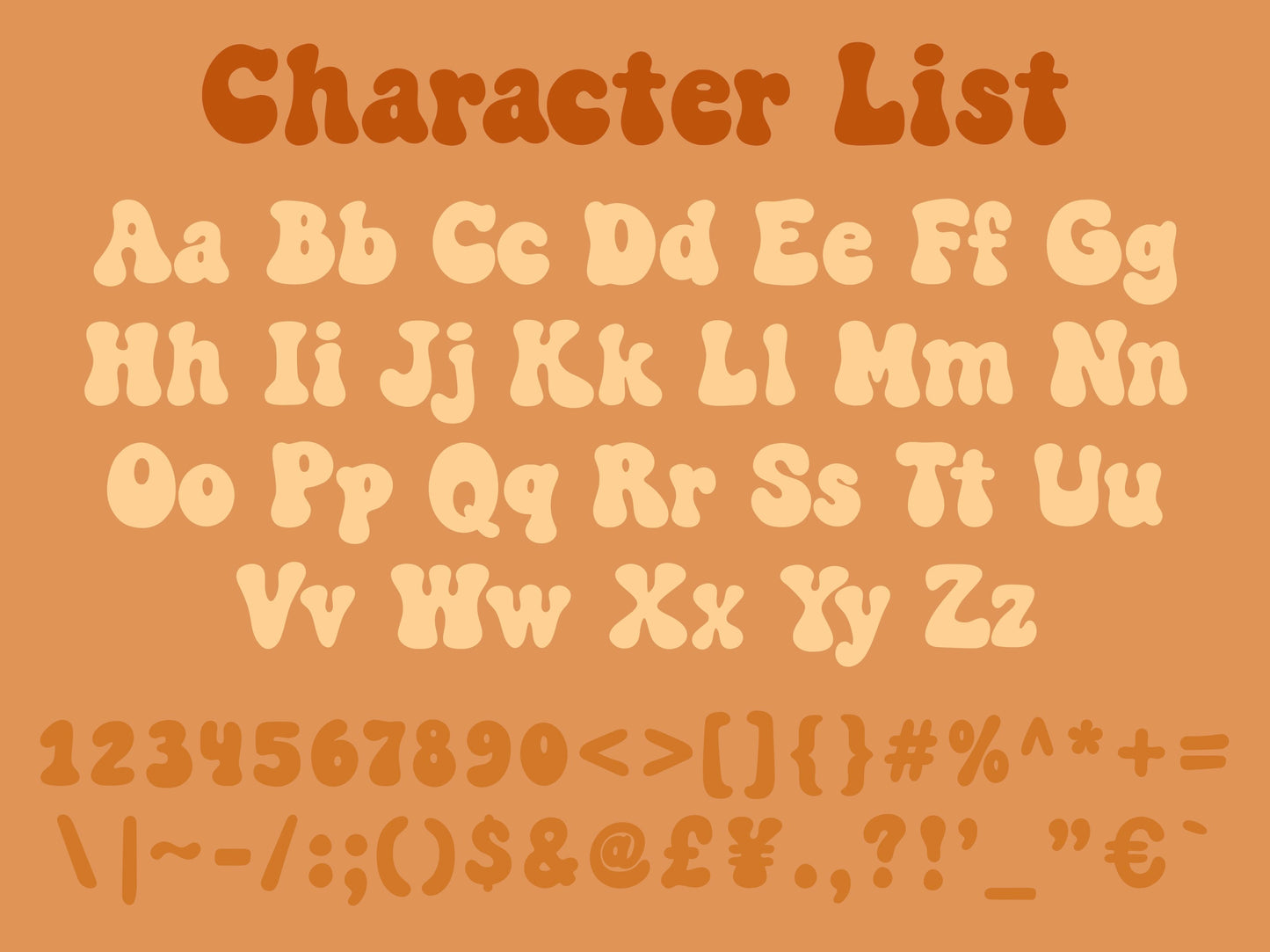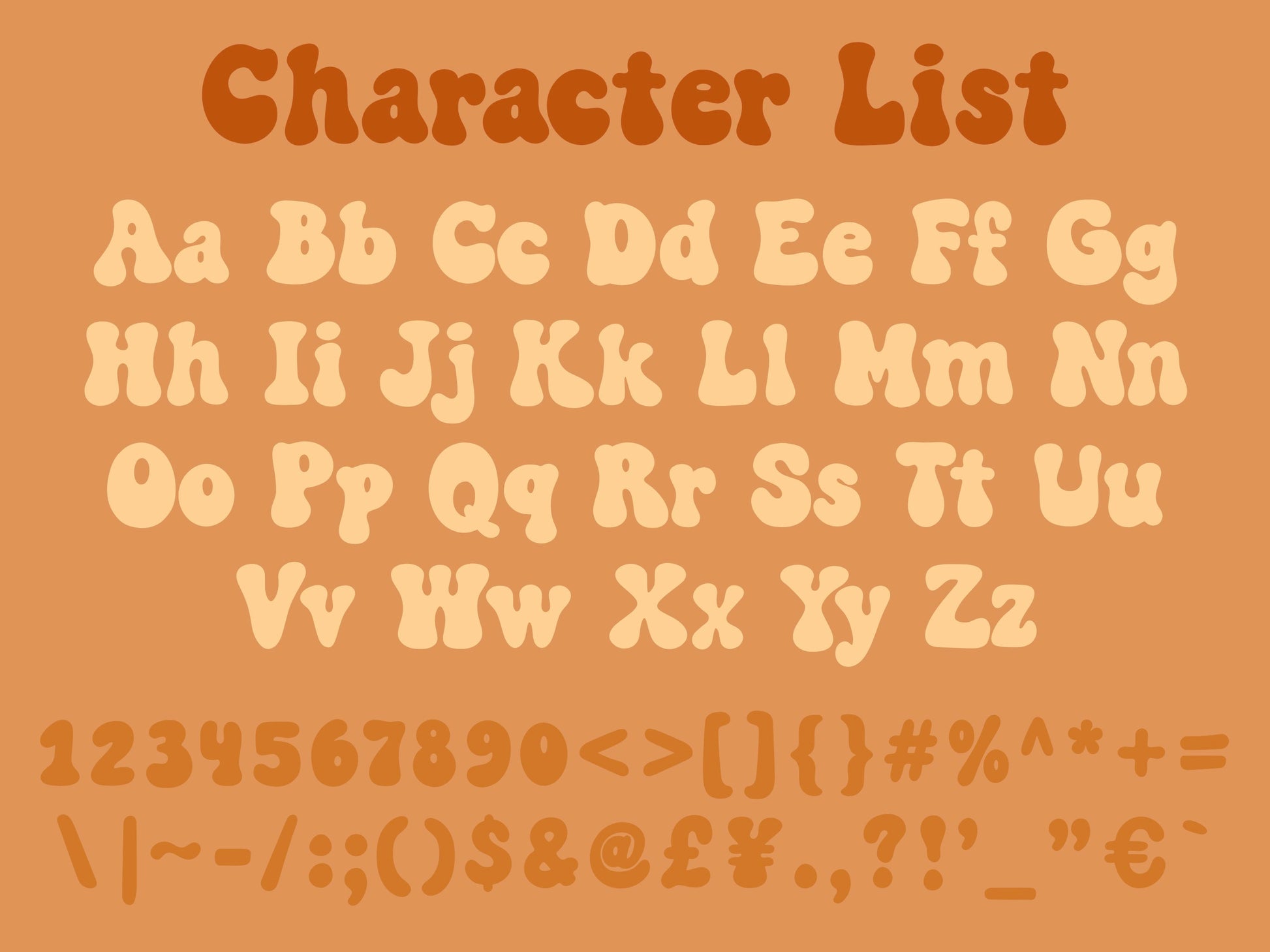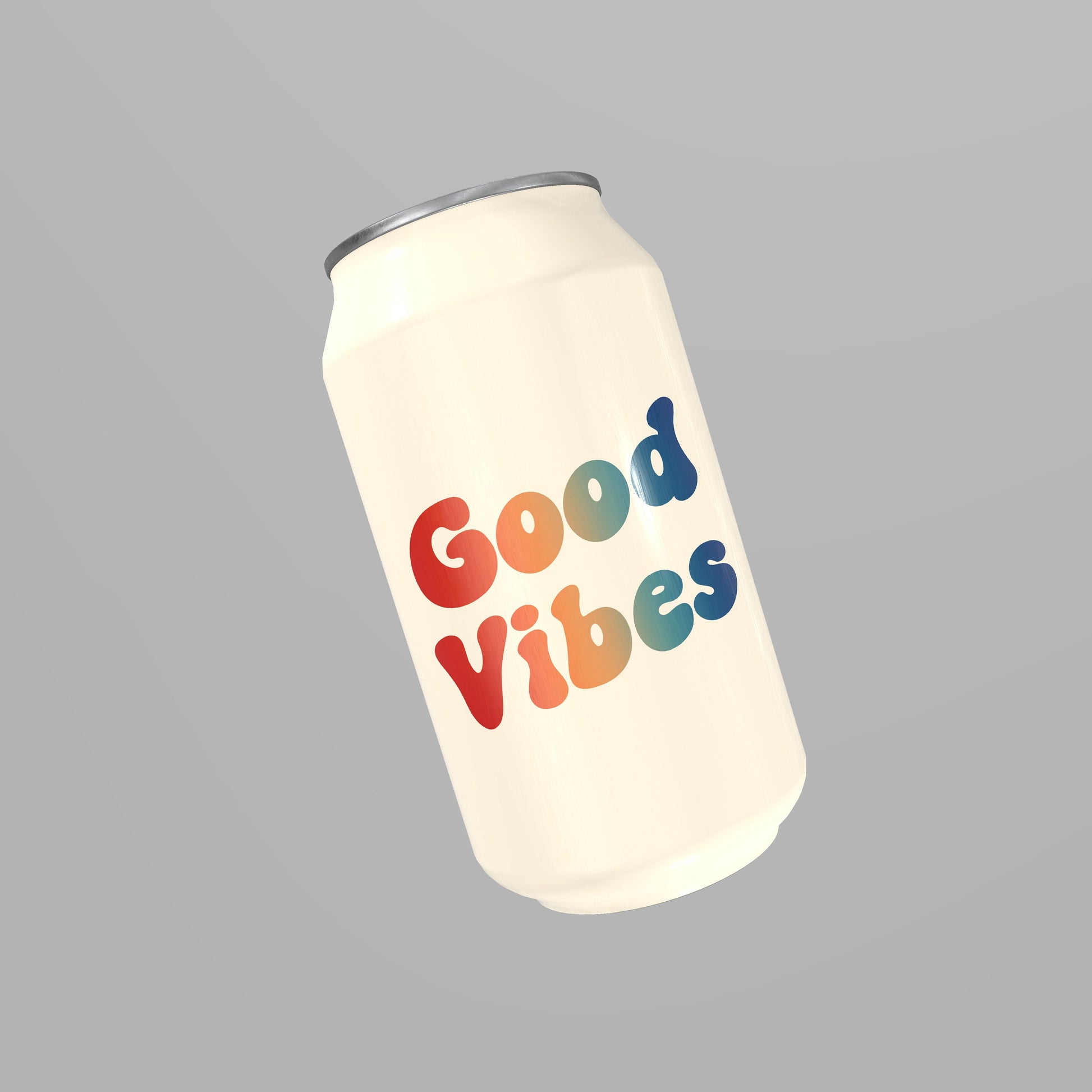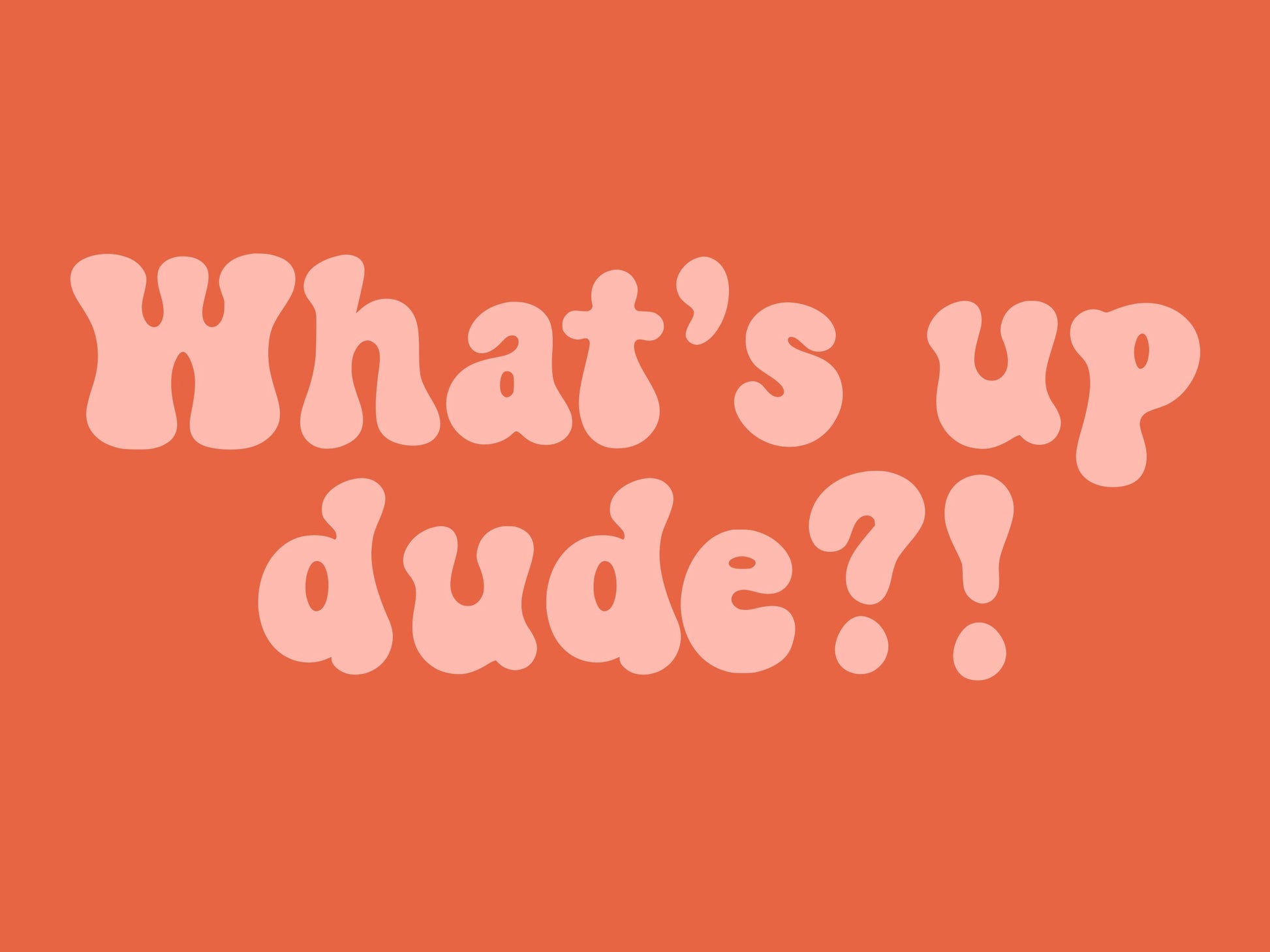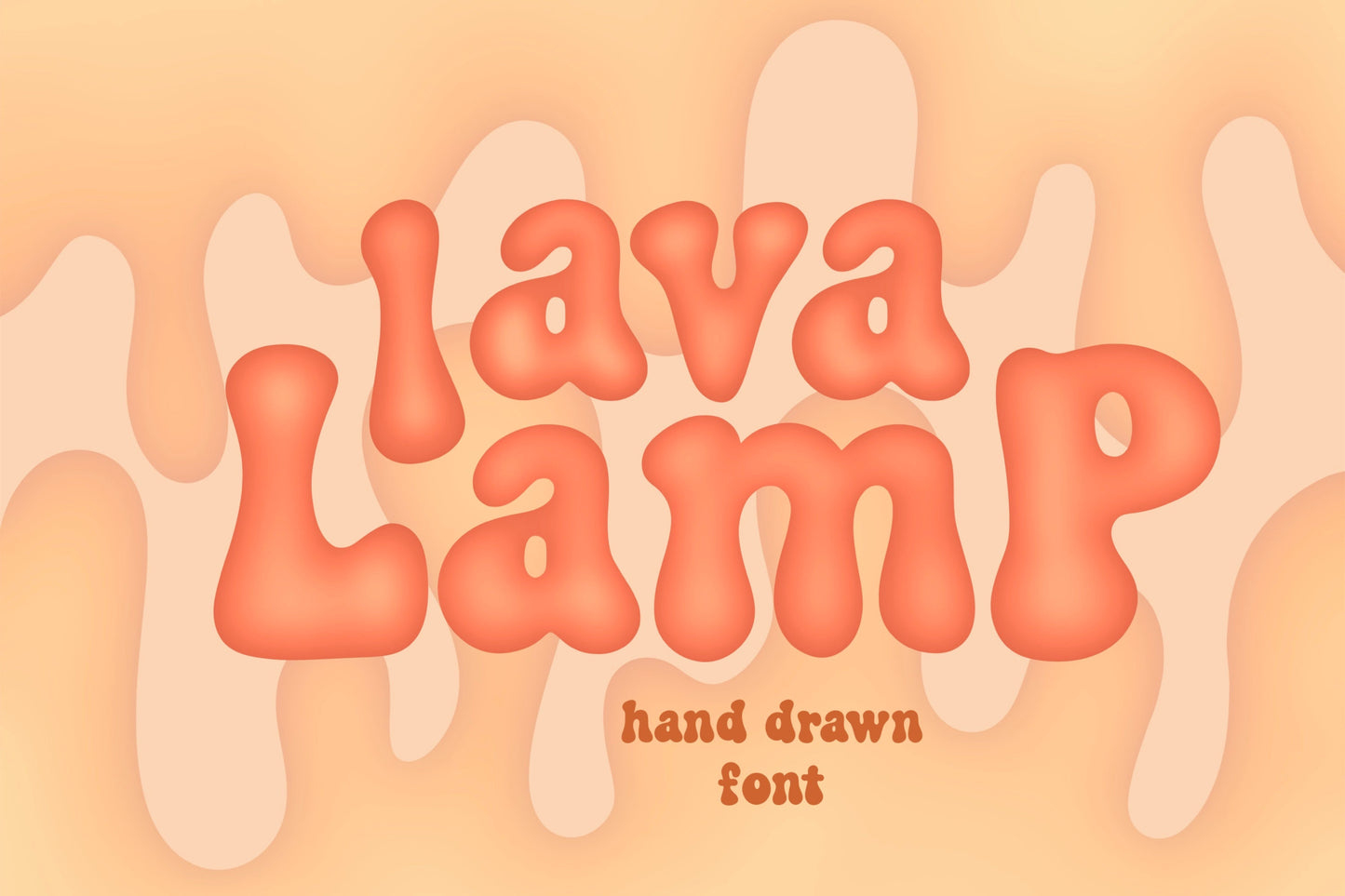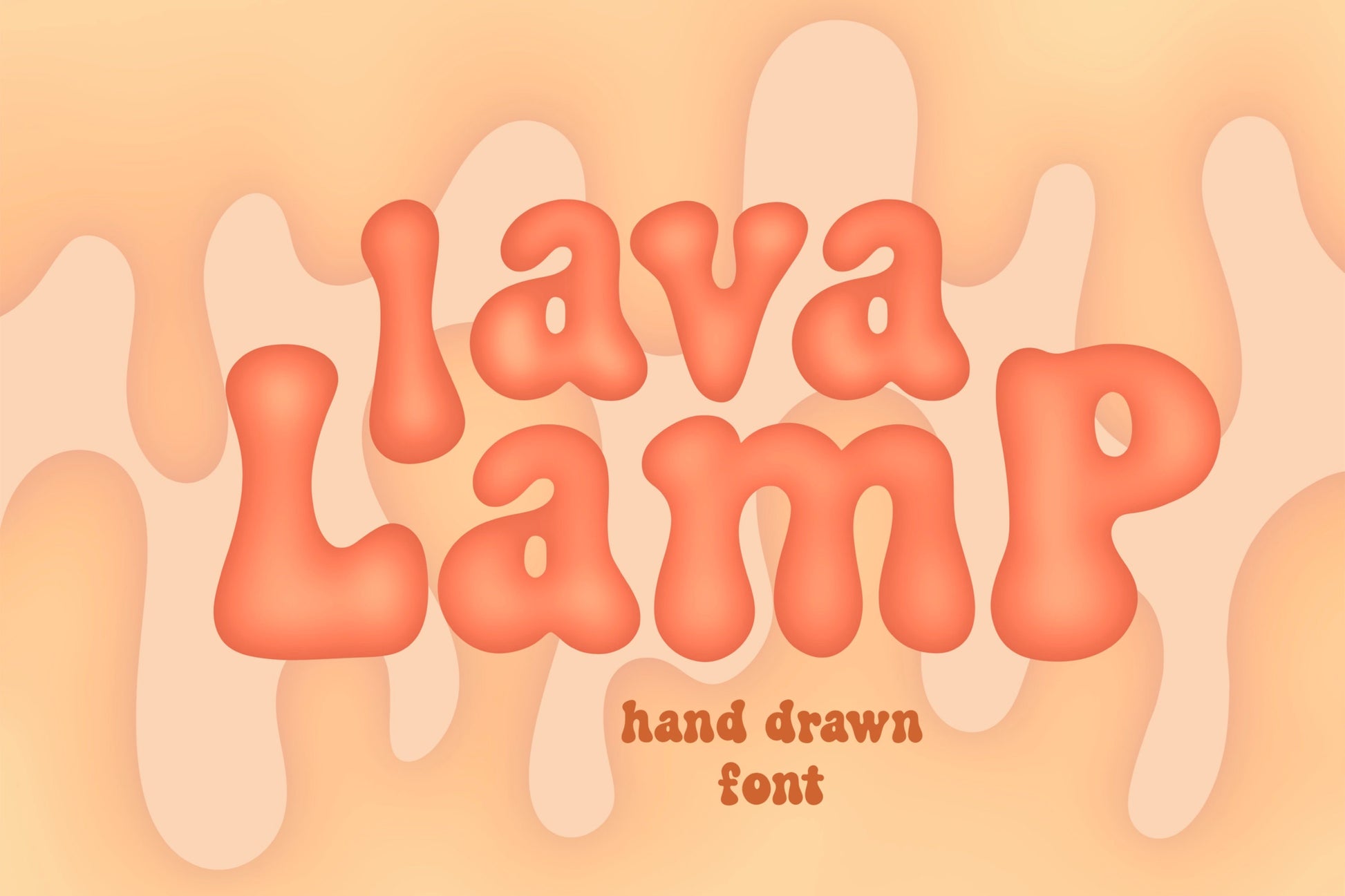
Lava Lamp Hand Drawn Font
This is my Lava Lamp handwritten/hand drawn font. This unique, rounded font will add a retro, groovy, handmade touch to your design! This versatile font is great for casual, playful occasions, designs, and logos!